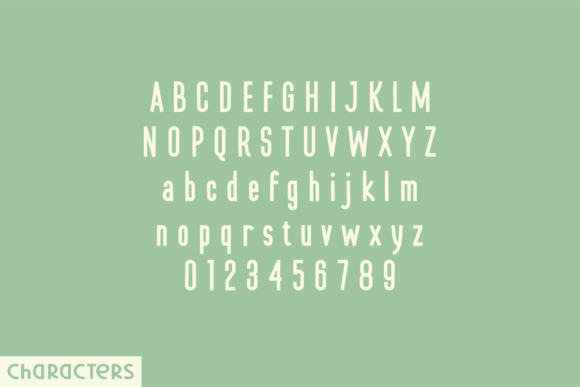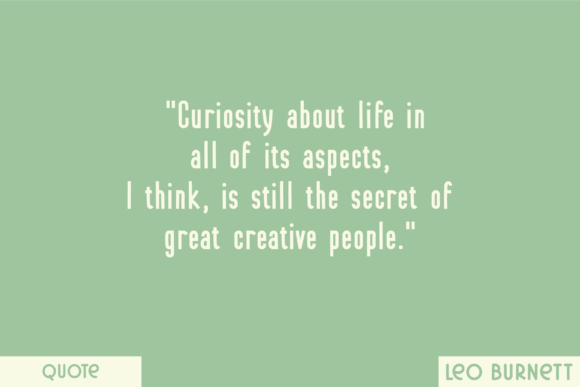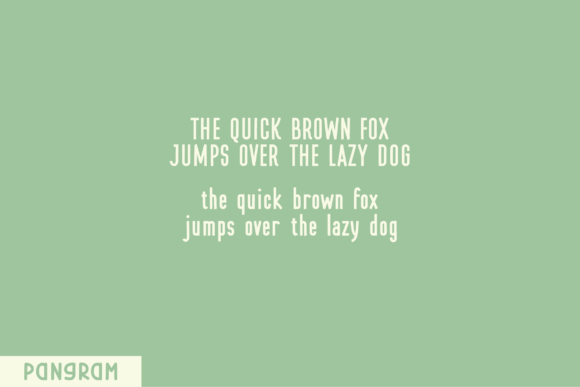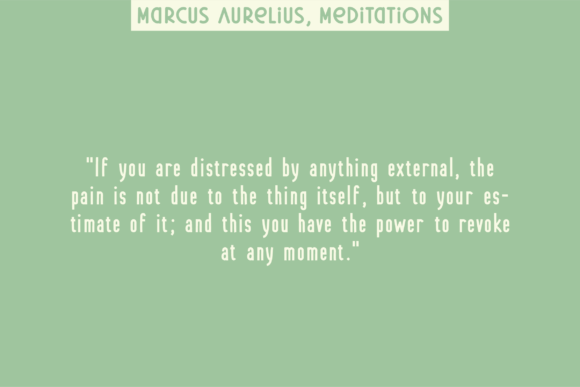
Introducing Asparagus Font: A Unique and Natural Sans Serif
Are you tired of using the same old fonts in your designs? Look no further than Asparagus Font, a fresh and exciting sans serif font that’s sure to add a touch of natural elegance to your work. What sets Asparagus apart is its unique approach to font design, where not a single node in each character’s indentation has been altered. This attention to detail makes Asparagus a standout in the world of typography.
The Story Behind Asparagus Font
Asparagus Font is a carefully crafted sans serif font that’s inspired by the natural world. Its creator has meticulously designed each character to maintain its original indentation, resulting in a font that’s both unique and visually appealing. This distinctive approach to font design makes Asparagus perfect for designers and crafters looking to add a touch of personality to their work.
What Makes Asparagus Font So Special?
So, what makes Asparagus Font so special? Here are just a few of its standout features:
- Unique indentation: Asparagus Font’s unique indentation gives it a natural, hand-crafted feel that’s perfect for designs that require a personal touch.
- Natural sans serif: Asparagus Font is a true sans serif font, with clean lines and a minimalist aesthetic that’s perfect for modern designs.
- Versatile: Asparagus Font is versatile and can be used for a wide range of design projects, from quotes and notes to tees and product design.
Asparagus Font is a dream come true for designers and crafters looking to add a touch of personality to their work. Whether you’re designing a quote for a social media post, creating a note for a client, or crafting a tee for a customer, Asparagus Font is the perfect choice. Its unique indentation and natural sans serif design make it perfect for:
- Quotes: Add a touch of elegance to your quotes with Asparagus Font’s unique and visually appealing design.
- Notes: Use Asparagus Font to add a personal touch to your notes and make them stand out.
- Tee design: Asparagus Font is perfect for tee design, adding a touch of personality to your designs.
- Product design: Use Asparagus Font to add a touch of natural elegance to your product design.
- Experiment with different sizes: Asparagus Font looks great in a variety of sizes, from small and delicate to large and bold.
- Play with color: Asparagus Font is perfect for designs that require a pop of color. Experiment with different colors to find the perfect look for your design.
- Combine with other fonts: Asparagus Font pairs well with other fonts. Try combining it with a serif font for a unique and visually appealing design.
Asparagus Font is a unique and natural sans serif font that’s perfect for designers and crafters looking to add a touch of personality to their work. Its distinctive indentation and clean lines make it perfect for a wide range of design projects, from quotes and notes to tees and product design. With its versatility and natural elegance, Asparagus Font is sure to become a favorite in your design arsenal.